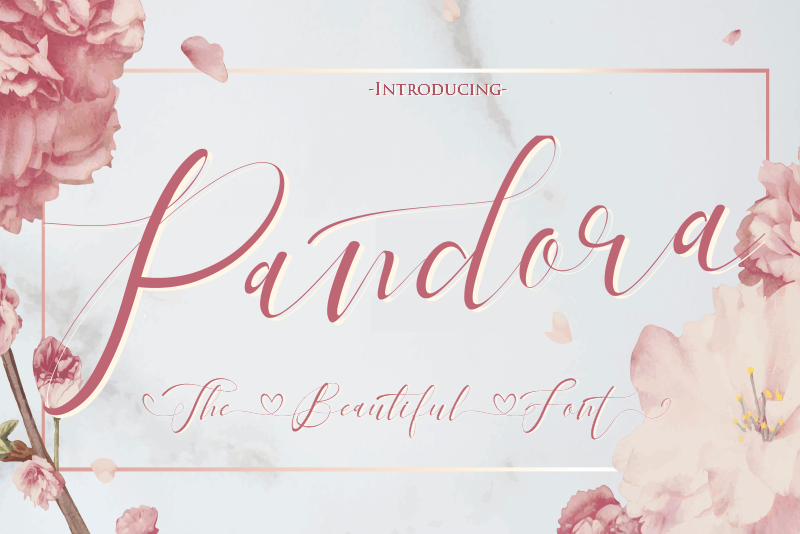
Font name: | Pandora |
Author: | Gilar Studio |
Note by Gilar Studio | |
Introducing the Beautiful calligraphy font, "Pandora" ! Pandora this font Is perfect for logo, invitation, stationery, wedding designs, social media posts, advertisements, product packaging, product designs, label, photography, watermark, special events or anything. "Pandora" includes full set of gorgeous uppercase and lowercase letters, multilingual support, punctuation, 195 ligatures, alternates, and stylisticset from ss01 to ss17 gorgeous extras from a to z and beginning and ending numerals swashes. everything can be easily accessed using software that supports OpenType. Like Adobe Indesign, Adobe Illustrator CS, Adobe Photoshop CC, and Corel Draw. Give it a try! You will surely love it! Thanks and have a wonderful day, Gilar :) see full version on : https://fontbundles.net/gilar-studio/380046-pandora-the-beautiful-font https://www.creativefabrica.com/product/pandora-2/ref/236330/ |